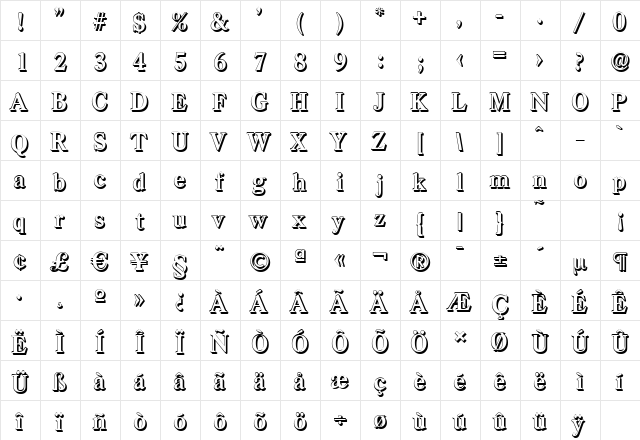
CasadShadow Bold
Design Context for CasadShadow Typeface
CasadShadow is built around its visual character rather than neutral utility — its distinctive forms are designed to make an impression at display sizes. The heavy weight commands attention and anchors typographic hierarchies.
Font Pairing: Pair with a clean neutral sans-serif for body copy to let CasadShadow's character lead without overwhelming the composition.
Pro Tip: Treat CasadShadow as the centrepiece of your typographic hierarchy. One strong heading set in a decorative face can carry an entire layout.